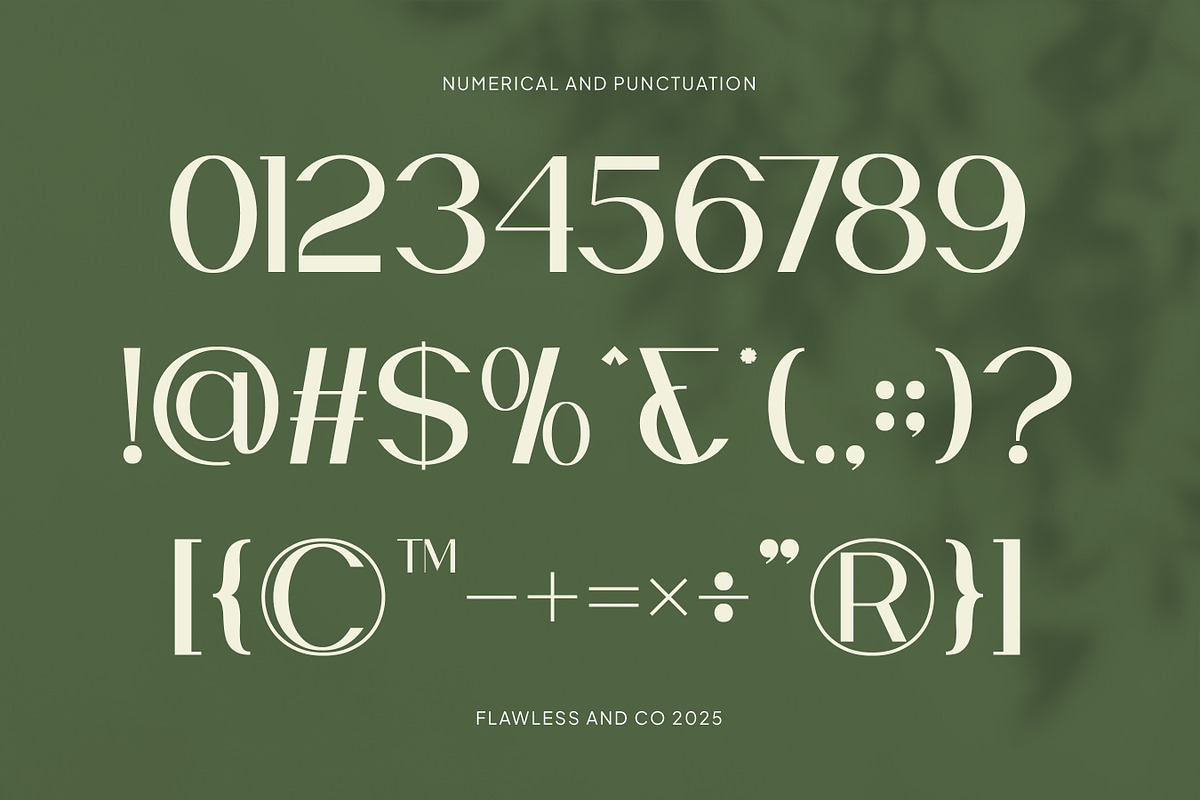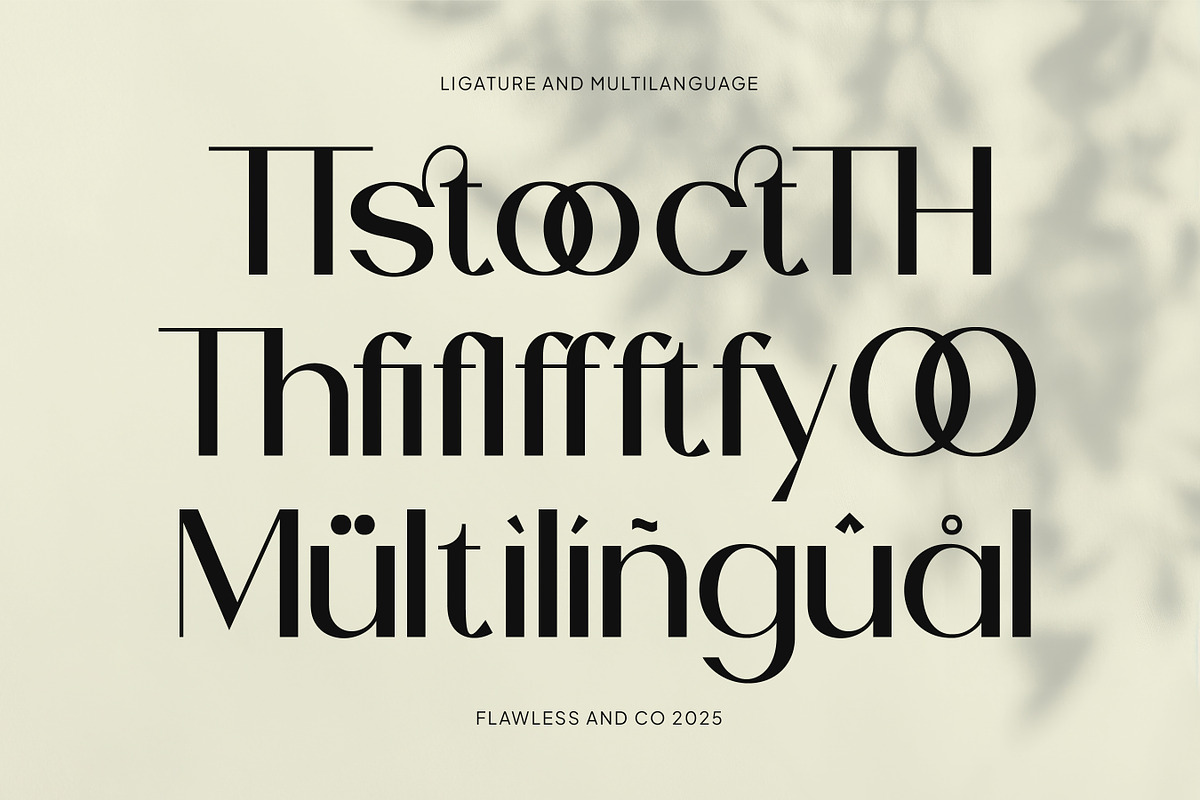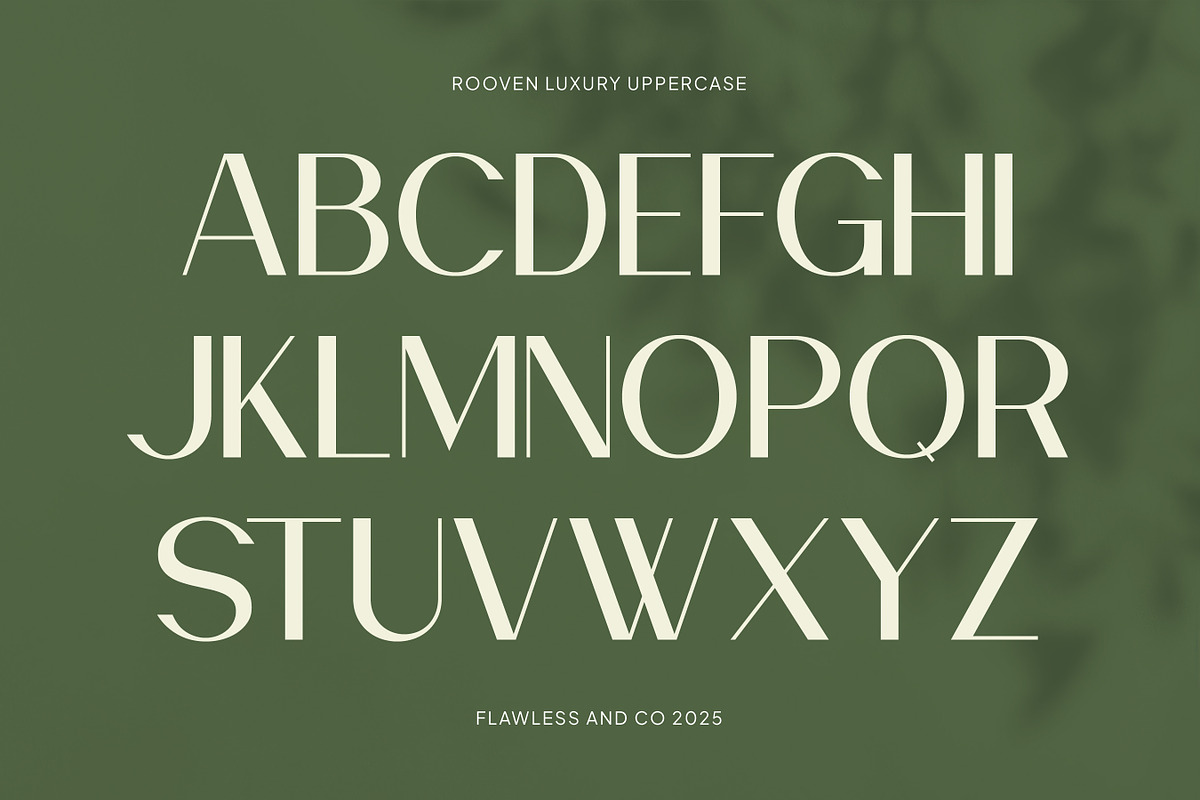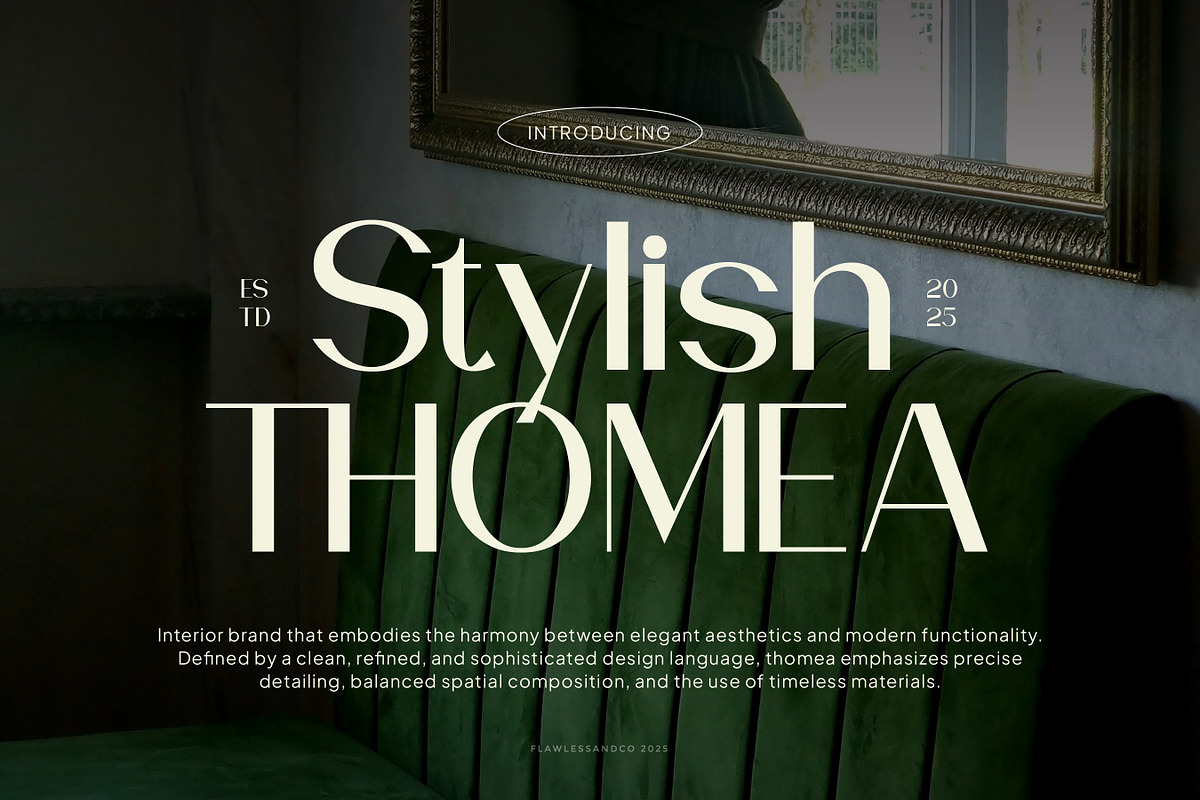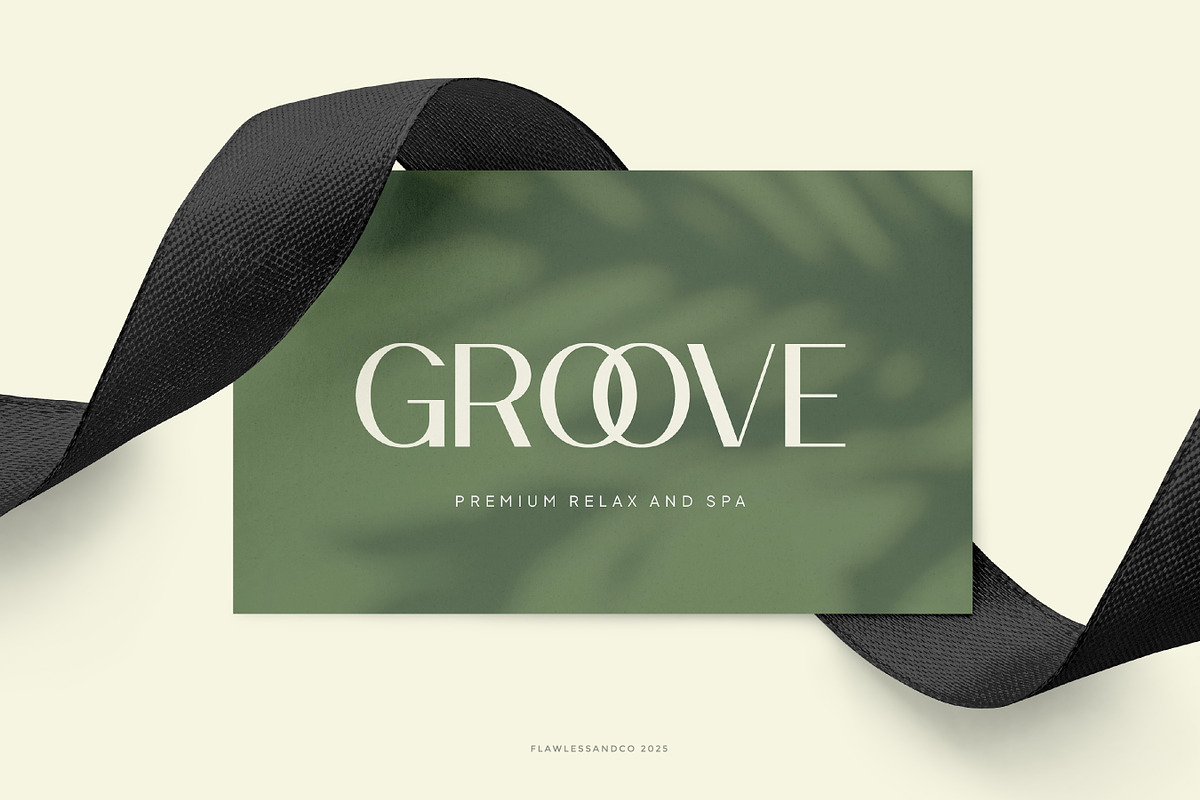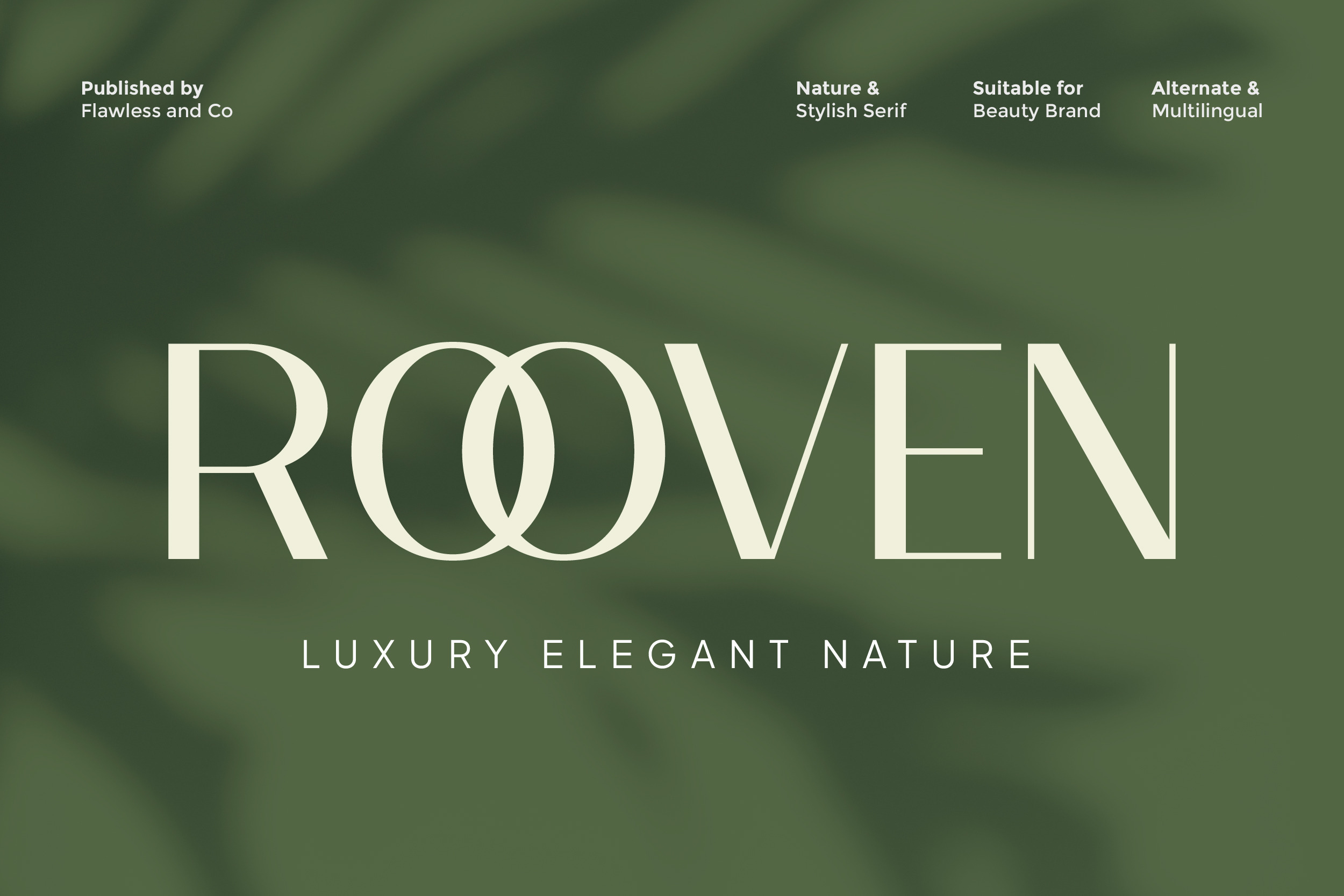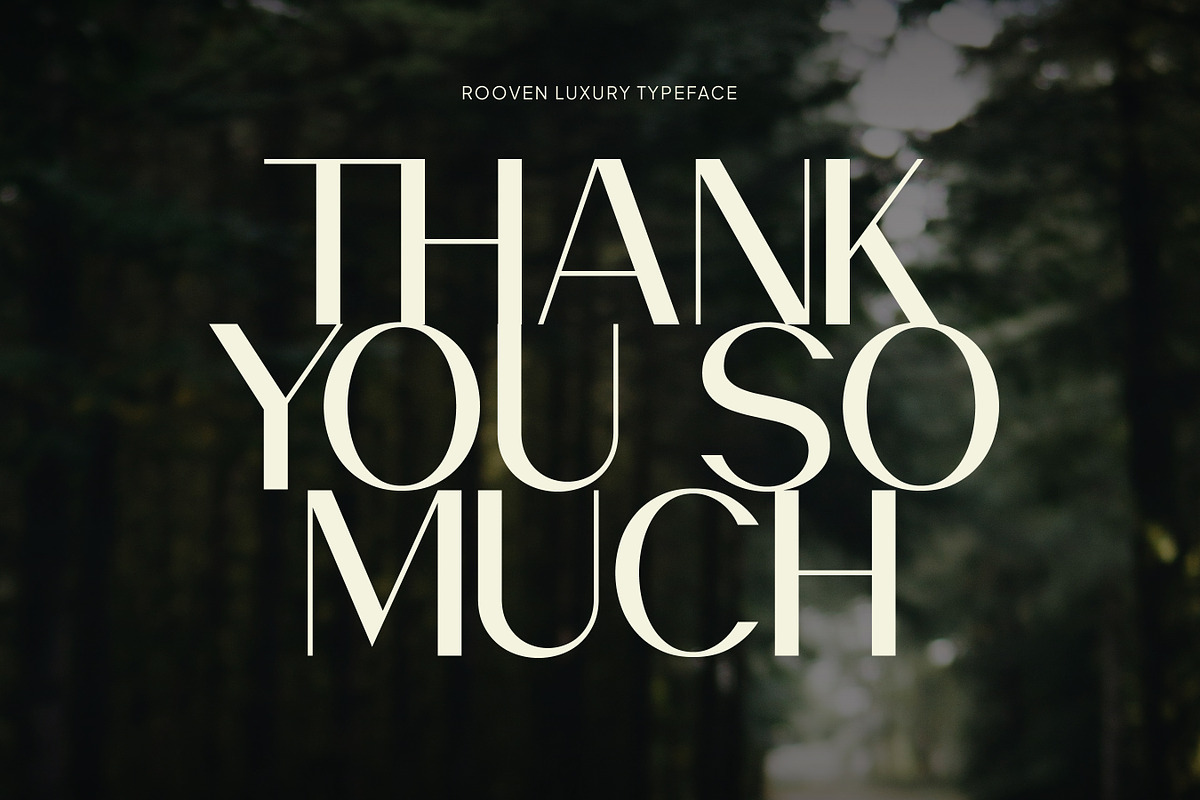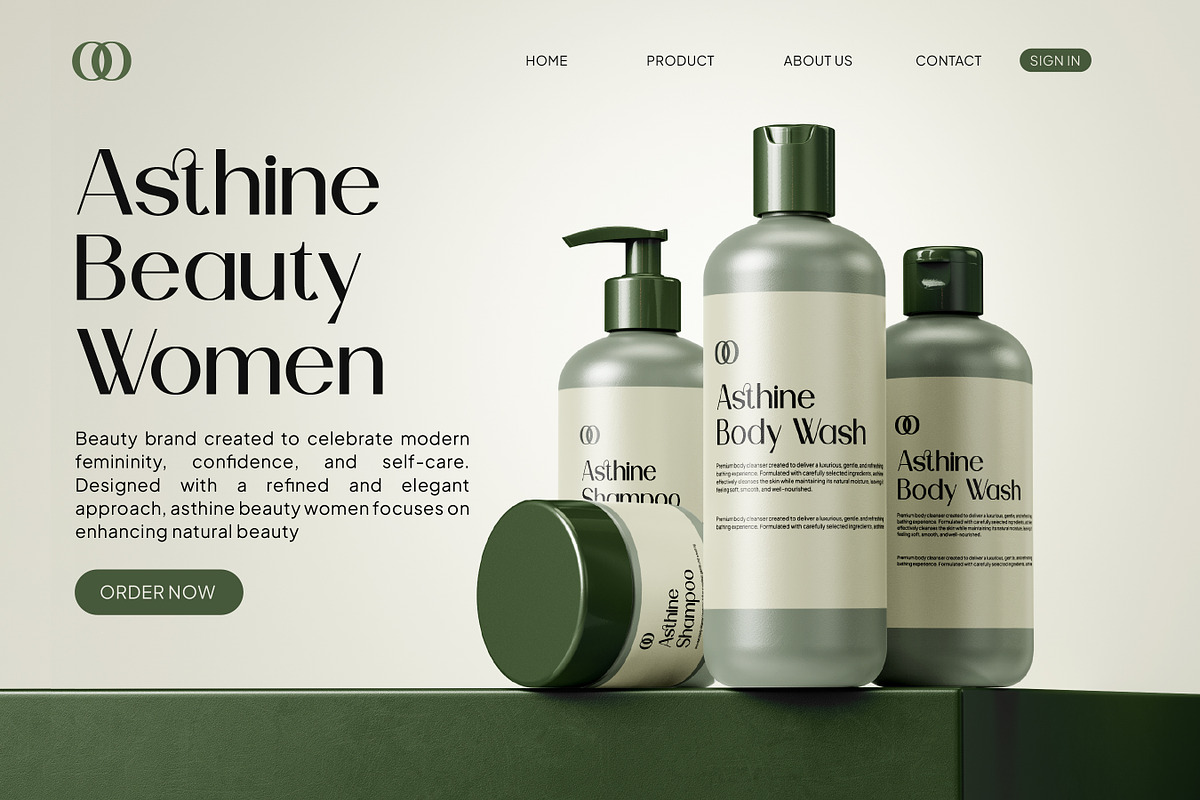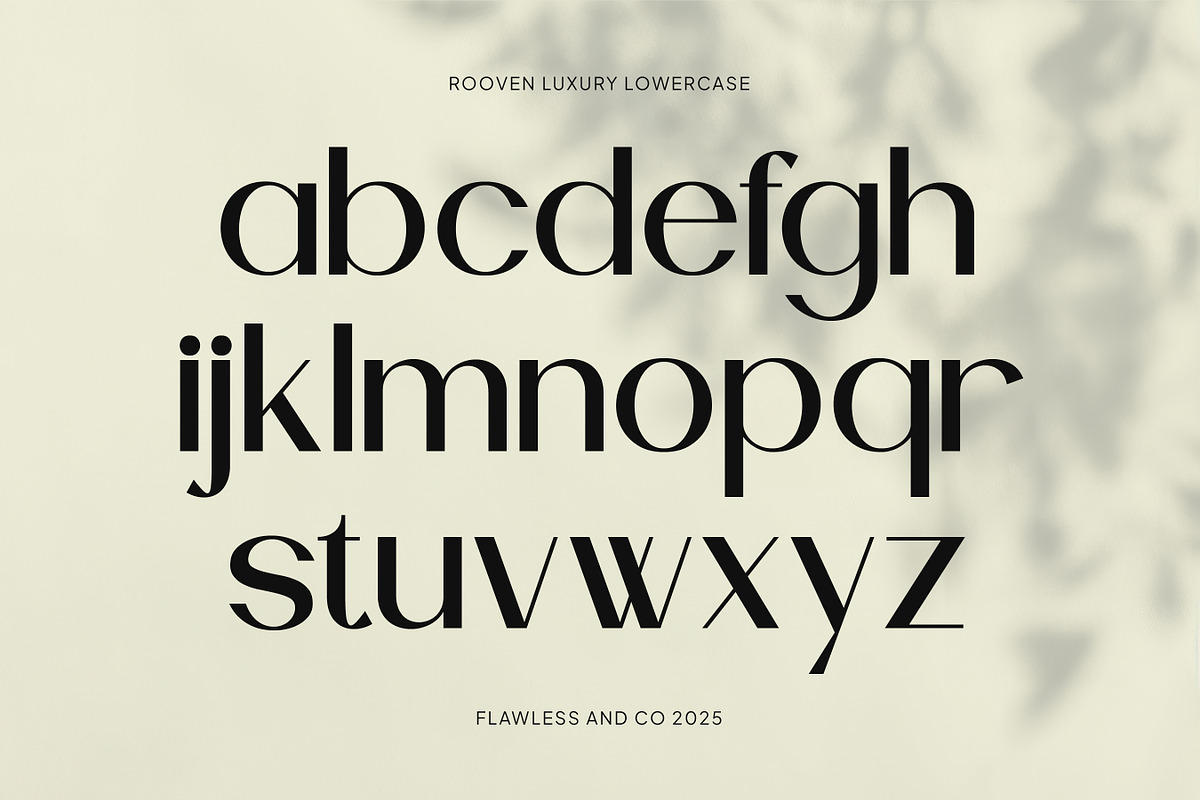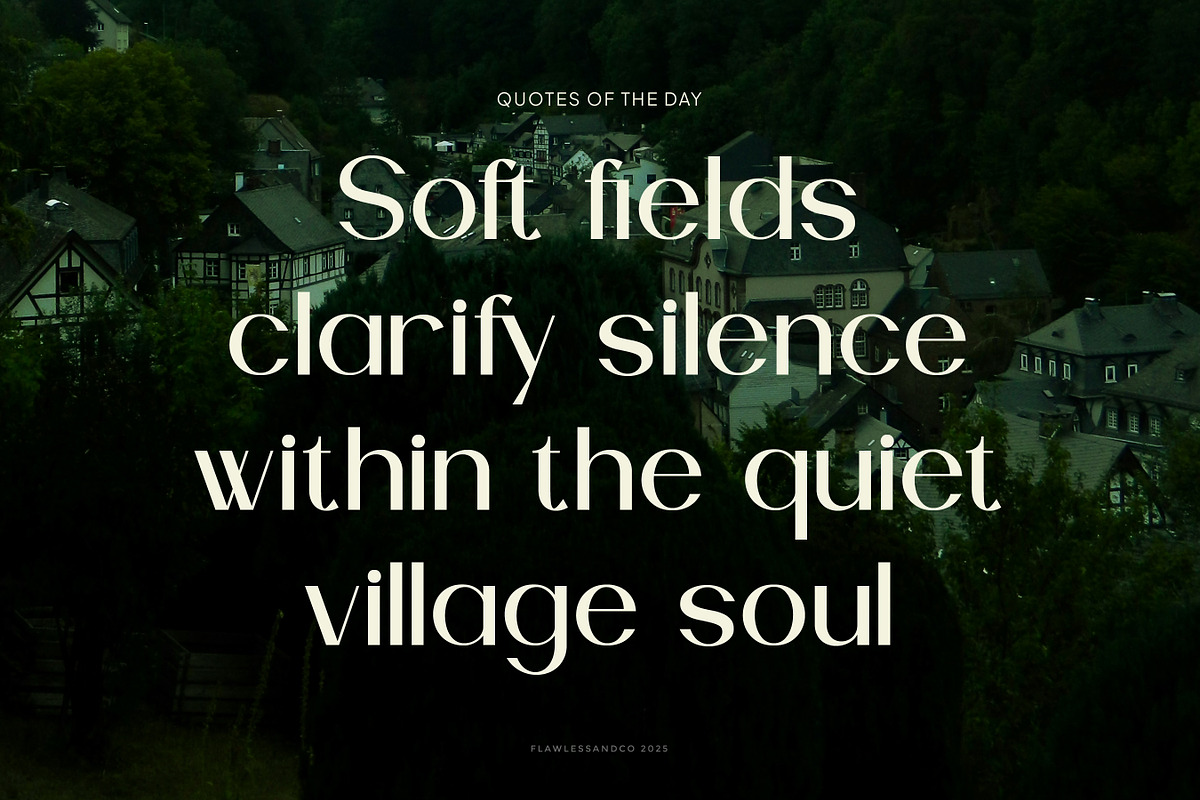
Rooven - Elegant Serif Font
Rooven is an elegant serif font crafted to express luxury, refinement, and natural beauty. With its stylish letterforms and balanced proportions, Rooven delivers a sophisticated look that feels timeless yet modern. This font is designed to elevate visual identities with a calm, premium, and graceful character.
Who Should Use Rooven?
Rooven is perfect for brand designers, logo creators, and creatives who work with beauty, lifestyle, and luxury-oriented projects. It’s ideal for those who want a serif font that feels elegant, organic, and visually refined.
Why Choose Rooven for Brand and Logo Projects?
Rooven offers excellent readability combined with a luxurious feel, making logos look classy and trustworthy across various media. Its elegant structure ensures your brand identity stays consistent, stylish, and memorable.
Suitable For
- Luxury brand and logo design
- Beauty and skincare branding
- Fashion and lifestyle brands
- Editorial design
- Packaging design
- Website and social media visuals
- Premium marketing materials